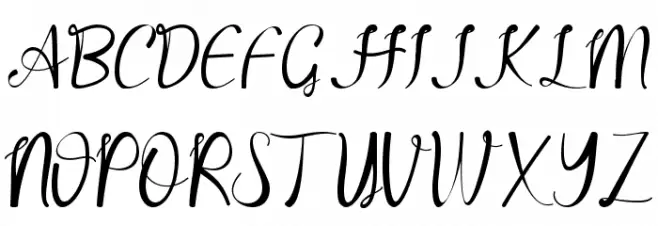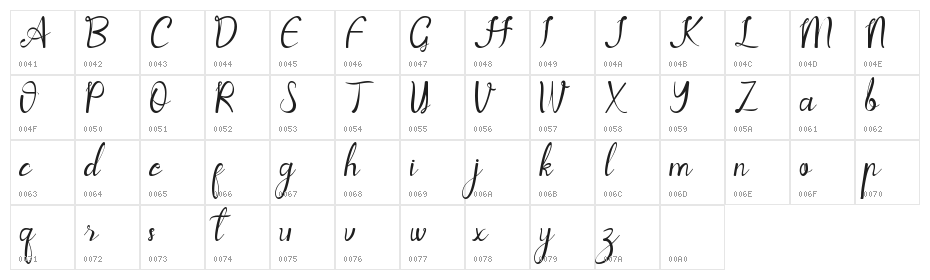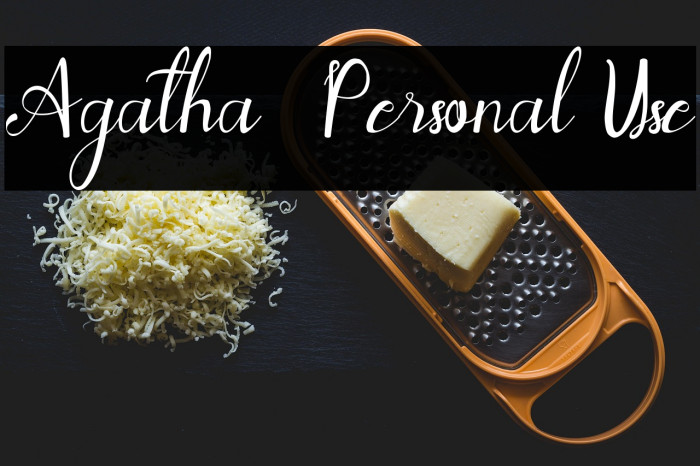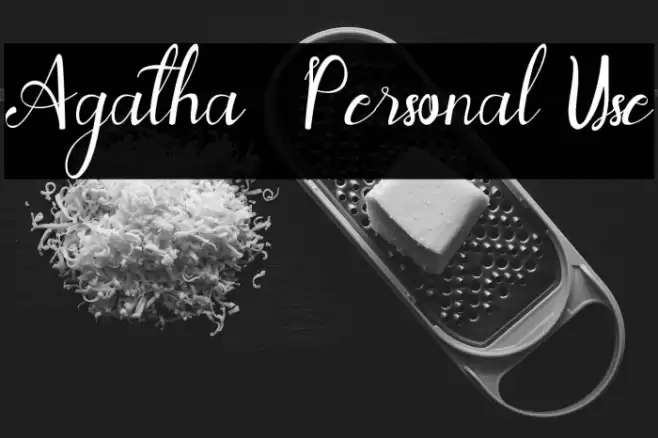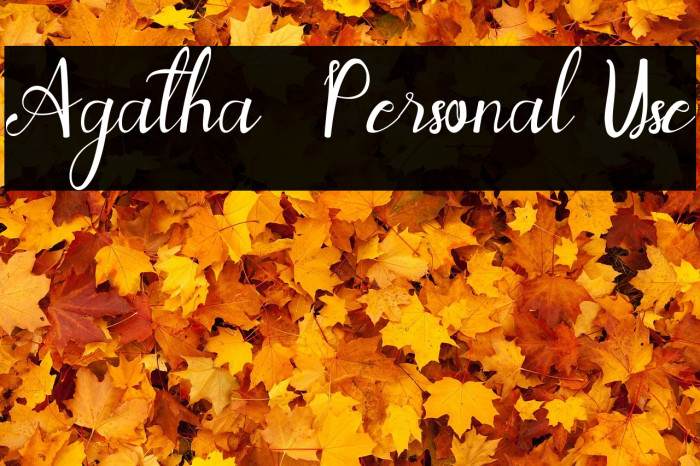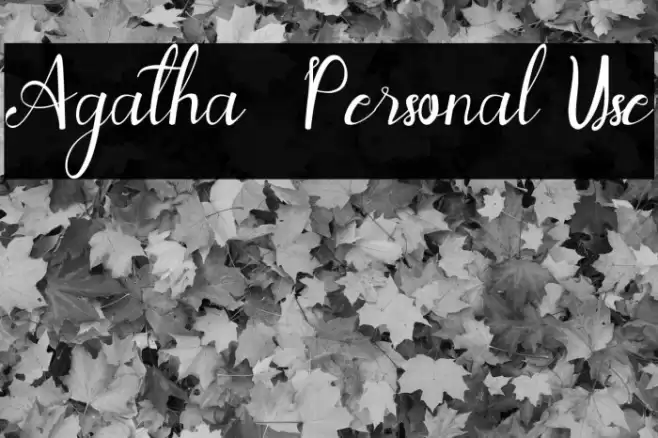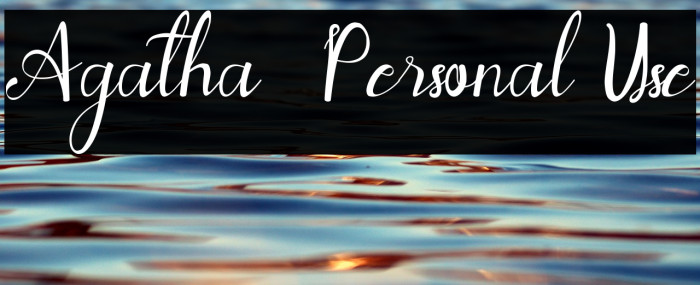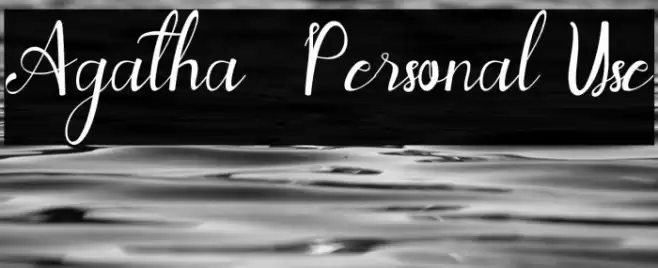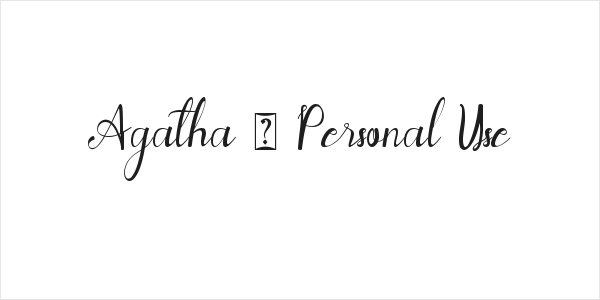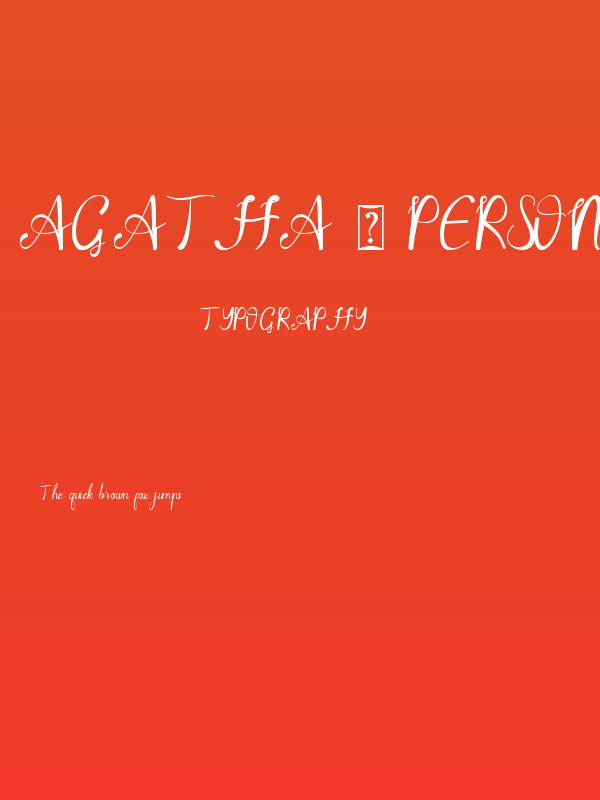
Agatha - Personal Use Font
Agatha - Personal Use Description
This font features an elegant and flowing script style, characterized by its delicate and intricate letterforms. The uppercase letters are adorned with graceful loops and swashes, giving them a sophisticated and artistic appearance. The lowercase letters maintain a consistent fluidity, with smooth connections between each character, enhancing the overall cohesiveness of the text. The font's design is reminiscent of traditional calligraphy, yet it incorporates a modern twist with its unique flair and embellishments. The strokes vary in thickness, adding a dynamic contrast that enhances readability while maintaining an artistic touch. This font is perfect for projects that require a touch of elegance and creativity.
| Overall Style | Elegant, Artistic |
| Proposed Projects | Ideal for wedding invitations, greeting cards, branding, and elegant logo designs. |